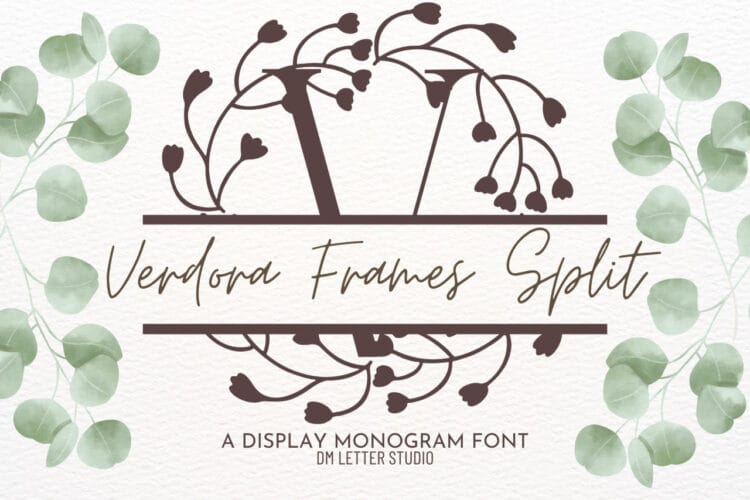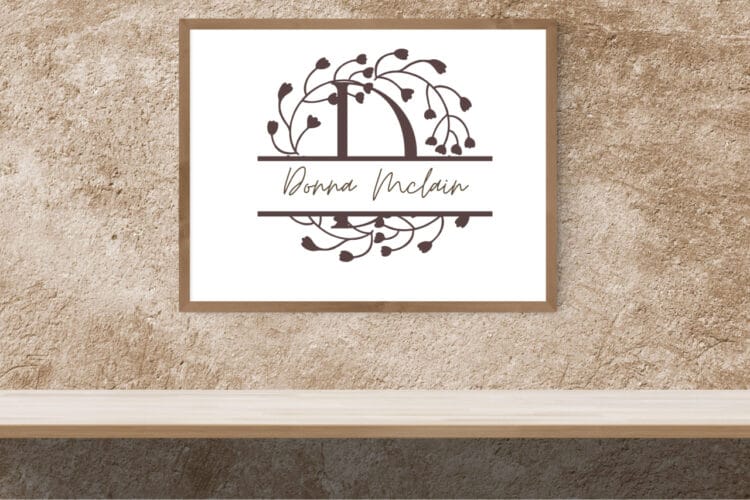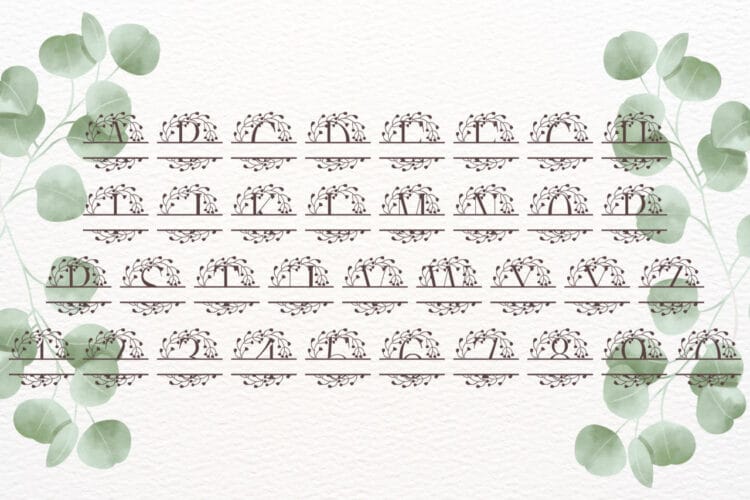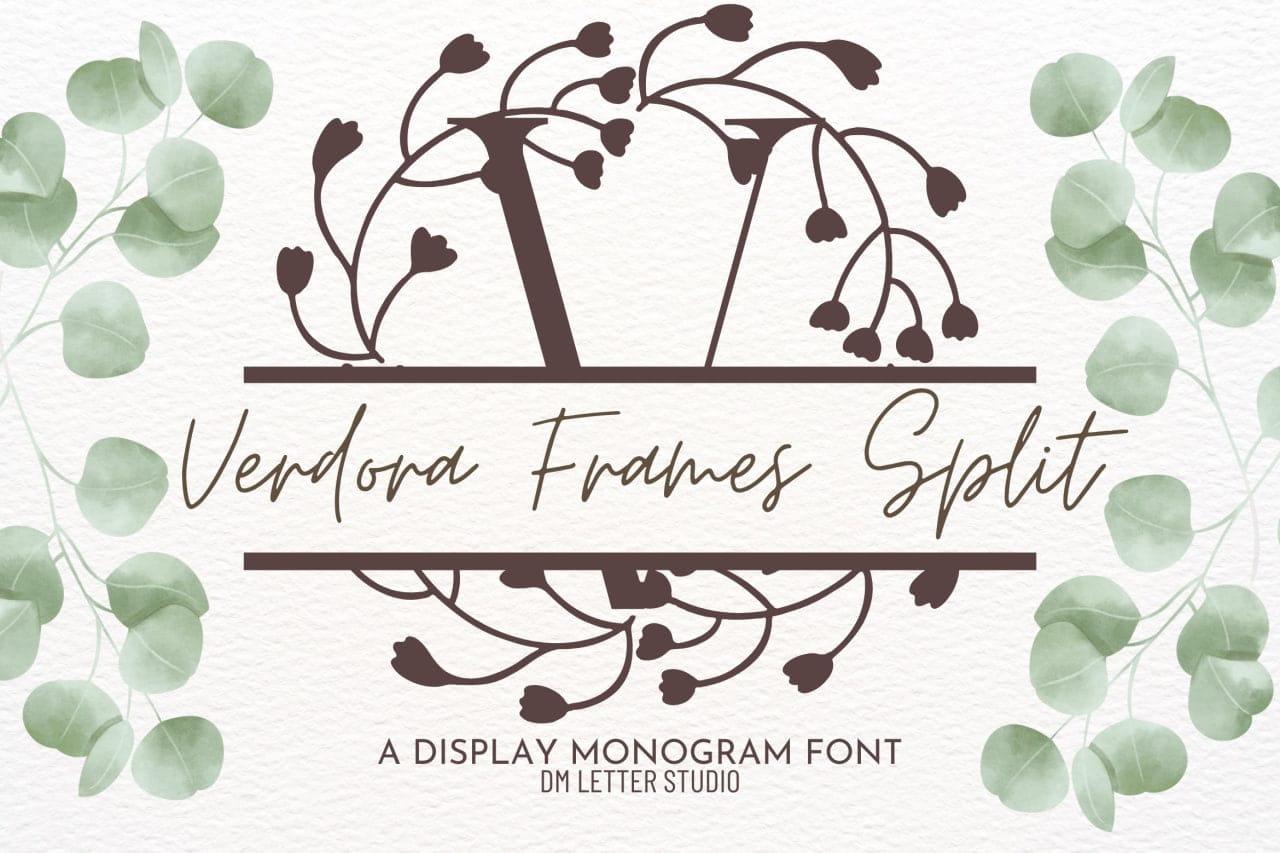
Meet Verdora Frames Split, the Monogram Font
Verdora Frames Split Monogram turns initials into refined framed emblems with a clean split center for names or dates. The design blends structured frames with soft botanical balance, creating a look that feels classic, calm, and premium. Each letter stays clear at any size, so small tags print sharp while larger designs look polished and display-ready. Use Verdora Frames Split for wedding suites, boutique logos, stationery, keepsake gifts, and luxury packaging. As a result, your monograms feel personal, finished, and easy to style.
Why Verdora Frames Split Monogram sells
First, setup is fast in Canva, Photoshop, and Illustrator. Next, the clean outlines cut and print beautifully for foil stamping, embossing, debossing, engraving, laser cutting, vinyl, DTF, and sublimation. Then layouts come together quicker because the frame and split space are already balanced. Moreover, the split center adds instant value, allowing names or dates to sit naturally inside the frame. Therefore, your shop can offer premium personalized designs with confidence and consistency.
Fast layouts with the Verdora Frames Split Monogram Font
Start with a bold initial and place the name or date in the split center. After that, keep extra text minimal so the framed structure remains the focus. Because Verdora Frames Split holds its shape at small sizes, labels, stickers, cards, and favor tags stay clean and readable. In addition, it pairs beautifully with soft serifs, neat humanist sans fonts, or light scripts for supporting text. Finally, save color pairs like sage and cream, eucalyptus and ivory, charcoal and champagne, or dusty blue and linen to reuse across collections.
Creative uses and quick wins
Wedding monograms, invitation covers, and menu headings
Place cards, table numbers, and favor tags
Logo seals, certificates, and boutique brand marks
Packaging labels for candles, soap, perfume, and gift boxes
Design tips for Verdora Frames Split Monogram Font
Keep the monogram as the hero and use a separate font for any text outside the split area. Also, give the frame enough breathing room so details stay crisp at small sizes. For a premium finish, try foil stamping, embossing, or letterpress on thick stock. Finally, export at 300 DPI for print and at 2× size for web so edges remain smooth everywhere.